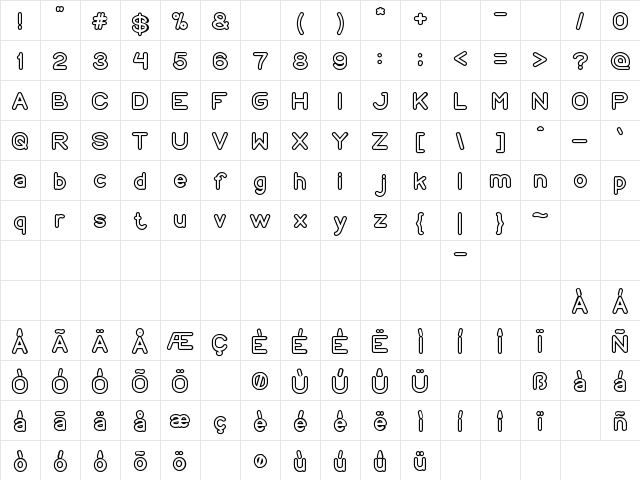
COPY PASTE Regular
Design Context for COPY PASTE Typeface
COPY PASTE offers clean, dependable letterforms without strong stylistic allegiance, making it a practical choice for designers who need flexibility.
Pro Tip: Use COPY PASTE in both headline and body roles to test its range before committing to a single application.